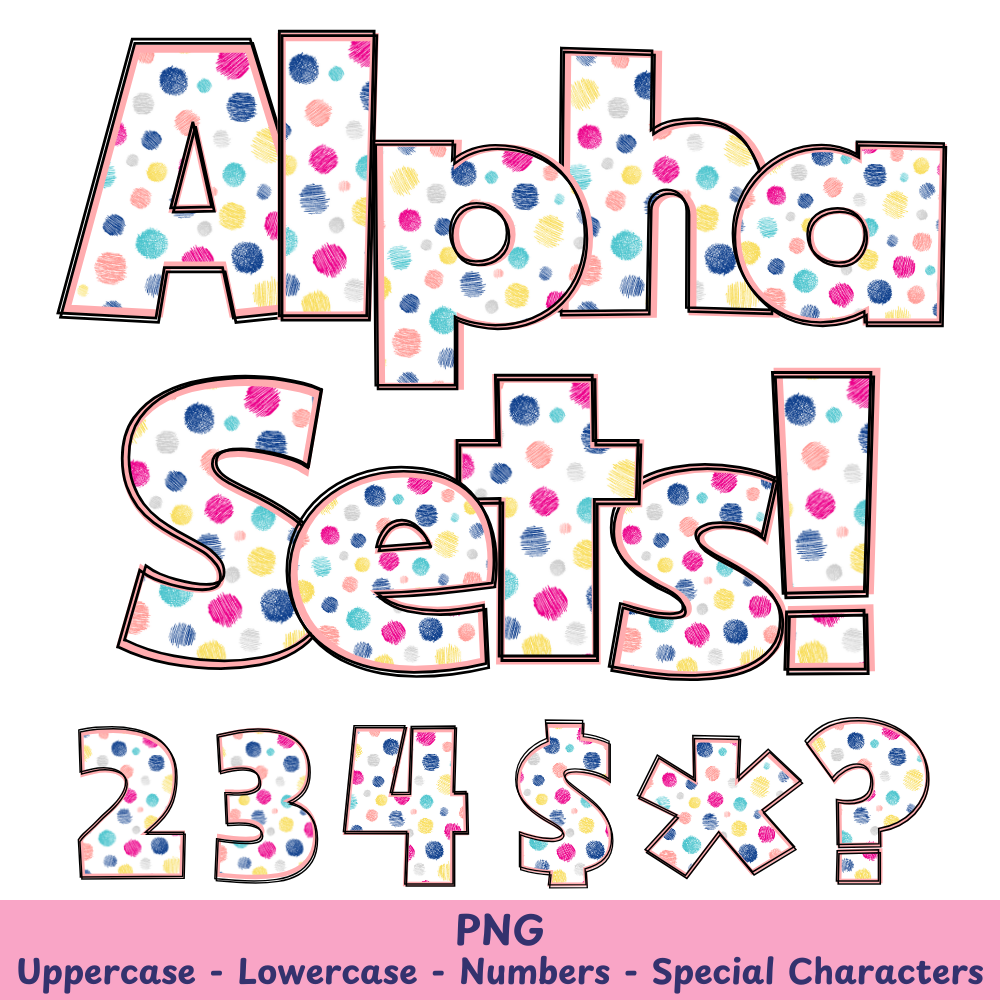
Peach Polka Dots PNG Font
Peach Polka Dots Alpha Set PNG Font Pack
Elevate your designs with the Peach Polka Dots PNG Font. This versatile font can be used in various crafts, sublimation, and more. Enhance your creations with its playful polka dot design, perfect for adding a touch of whimsy to any project. Get creative with Peach Polka Dots PNG Font!